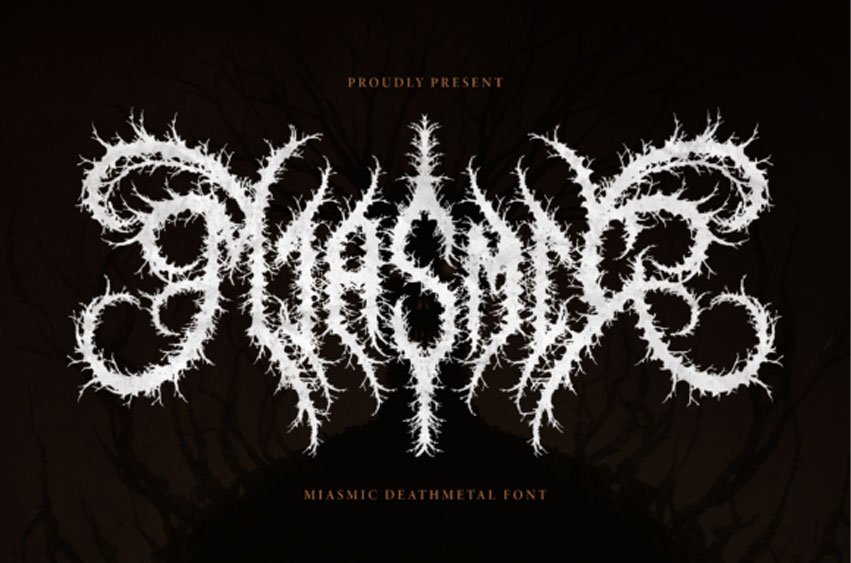
Miasmic Font is a bold, intense Death Metal font with rough, jagged letters that look dark and gritty.
Each letter has sharp edges and a twisted look, giving it a raw, powerful feel. Perfect for horror themes, metal band logos, or anything that needs a strong, eerie style.